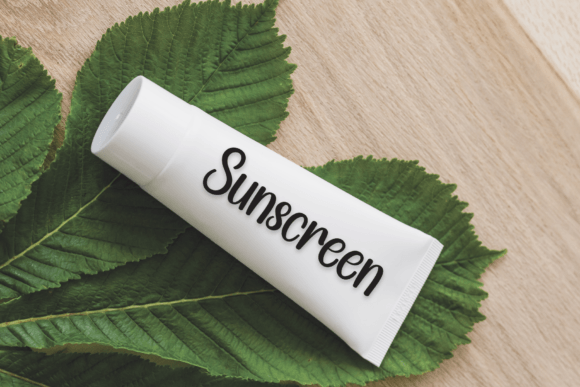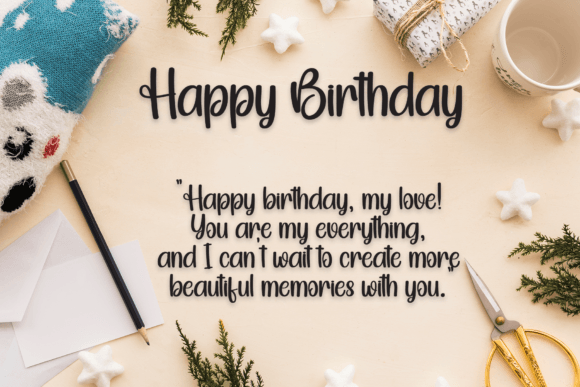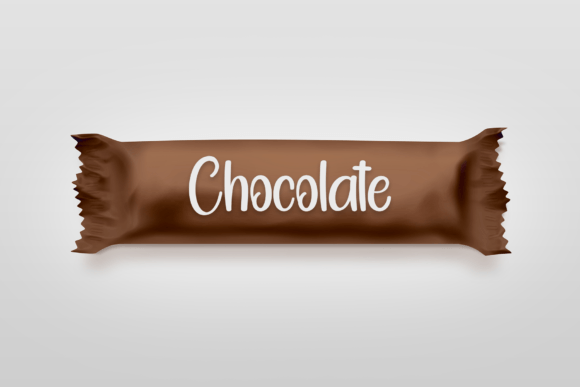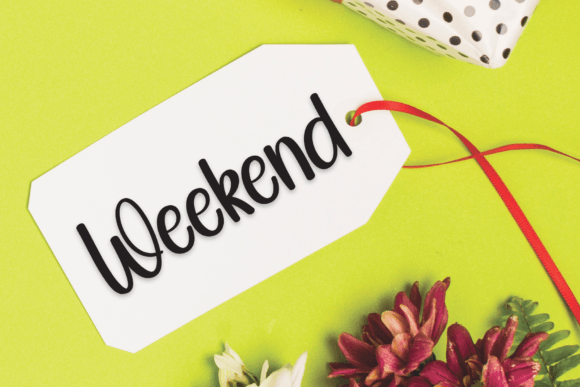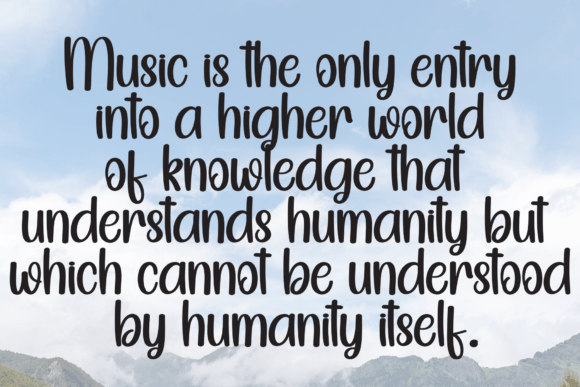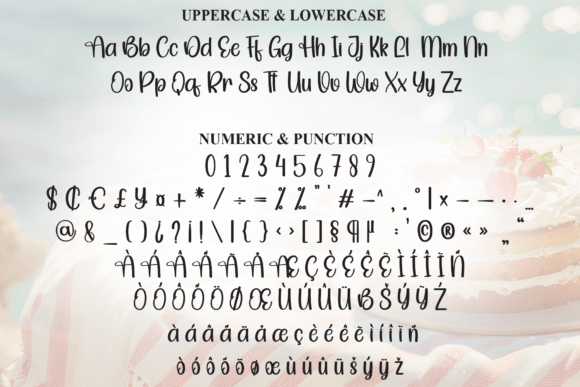
Cake Summer Font: The Perfect Addition to Your Design Projects
Are you looking for a font that exudes a sense of relaxation and friendliness? Look no further than Cake Summer Font. This casual handwritten font is designed to capture the essence of a warm summer day, with its natural, flowing strokes that bring an effortless charm to any design. In this article, we’ll dive into the features and benefits of Cake Summer Font, and explore how it can elevate your personal projects, social media, and invitations.
The Characteristics of Cake Summer Font
Cake Summer Font is a unique and refreshing addition to the world of typography. Its casual, handwritten style is characterized by:
- Natural, flowing strokes: The font’s strokes are smooth and fluid, giving it a relaxed and organic feel.
- Effortless charm: Cake Summer Font has a carefree, laid-back vibe that’s perfect for designs that require a touch of whimsy.
- Warmth and authenticity: The font’s easygoing style adds a sense of warmth and genuineness to any design, making it ideal for personal projects and social media.
Uses for Cake Summer Font
Cake Summer Font is a versatile font that can be used in a variety of design projects, including:
- Personal projects: Add a touch of personality to your personal designs, such as journals, planners, and crafts.
- Social media: Use Cake Summer Font to create engaging social media graphics, such as Instagram posts and Facebook updates.
- Invitations: Make your invitations stand out with the font’s unique and charming style.
- Crafting and DIY projects: Cake Summer Font is perfect for crafters and DIY enthusiasts who want to add a personal touch to their projects.
Benefits of Using Cake Summer Font
So why choose Cake Summer Font for your design projects? Here are just a few benefits:
- Unique and eye-catching: The font’s distinctive style is sure to grab attention and set your designs apart.
- Easy to read: Despite its casual style, Cake Summer Font is clear and easy to read, making it perfect for body text and captions.
- Versatile: The font’s versatility means it can be used in a wide range of design projects, from digital to print.
- Time-saving: With Cake Summer Font, you can create professional-looking designs in no time, thanks to its pre-designed characters and styles.
Tips for Using Cake Summer Font
To get the most out of Cake Summer Font, here are a few tips:
- Pair it with complementary fonts: Combine Cake Summer Font with other fonts to create a unique and visually appealing design.
- Experiment with colors: The font’s versatility means it can be used with a wide range of colors and textures.
- Use it consistently: To create a cohesive look, use Cake Summer Font consistently throughout your design project.
Cake Summer Font is a delightful addition to any design project, bringing a relaxed and friendly vibe to your designs. With its natural, flowing strokes and effortless charm, it’s perfect for personal projects, social media, and invitations. Whether you’re a designer, crafter, or DIY enthusiast, Cake Summer Font is sure to become a favorite in your typography collection.
So why not give Cake Summer Font a try? With its unique style and versatility, it’s sure to bring a touch of warmth and authenticity to your designs.